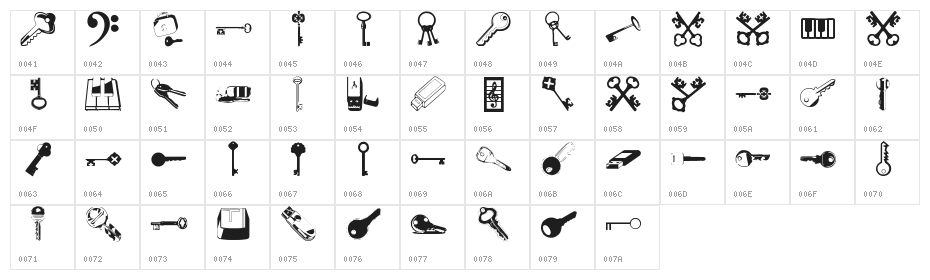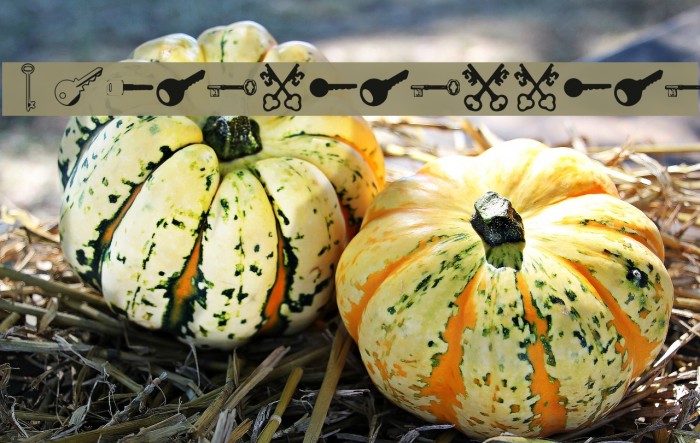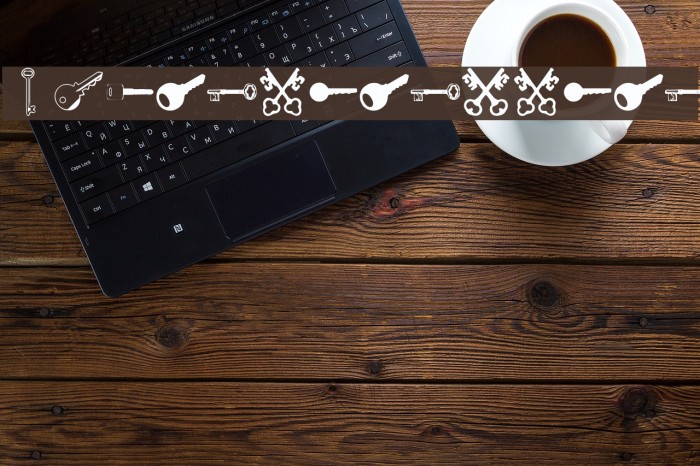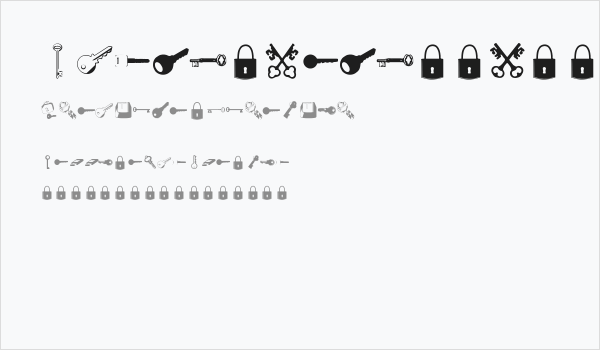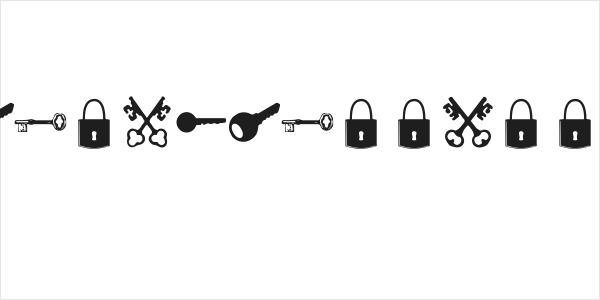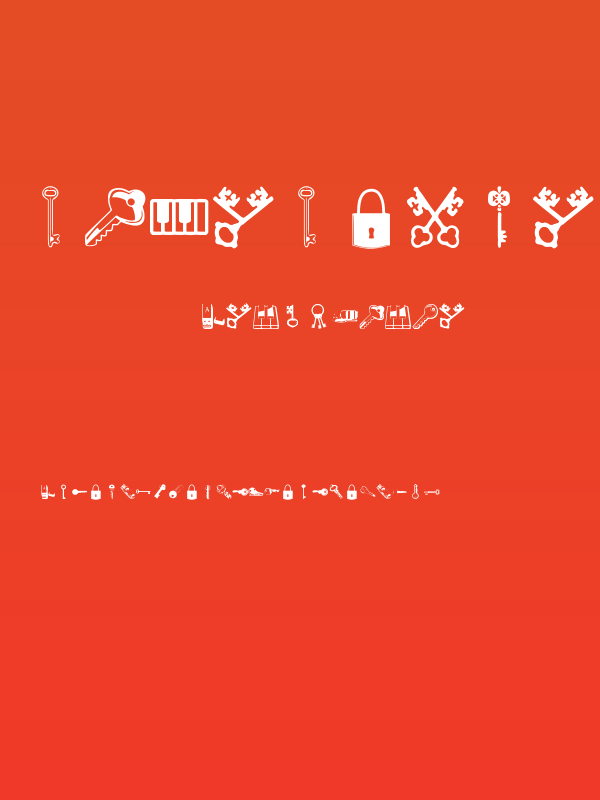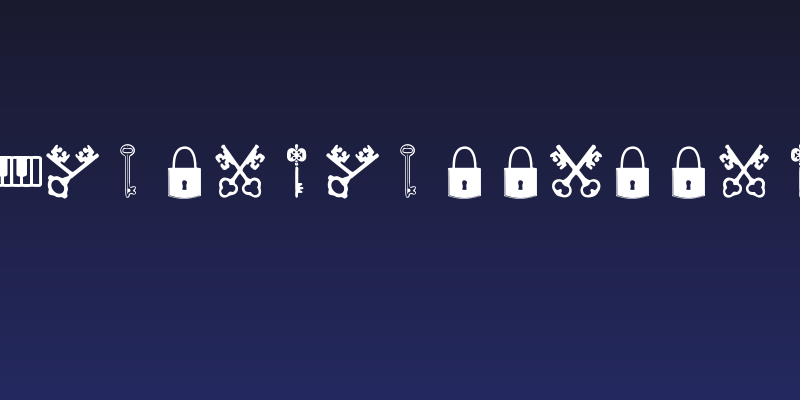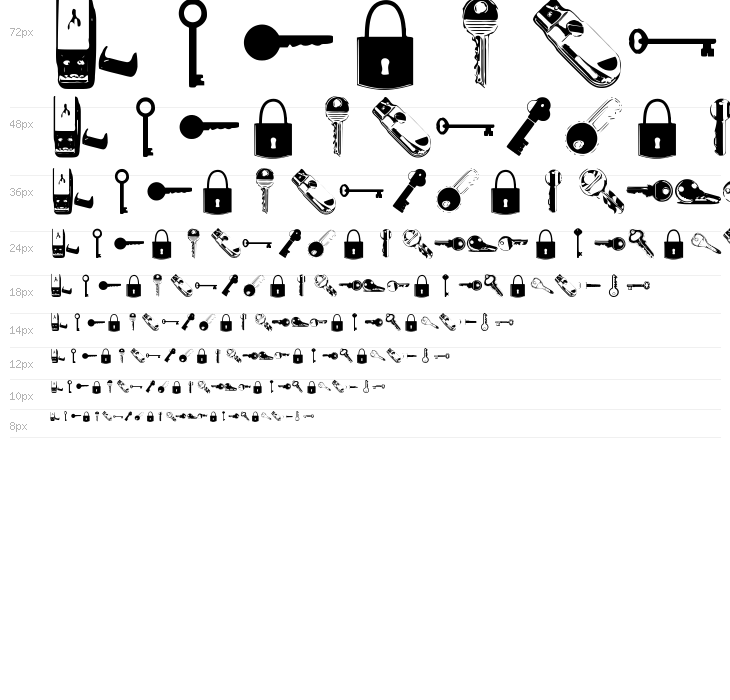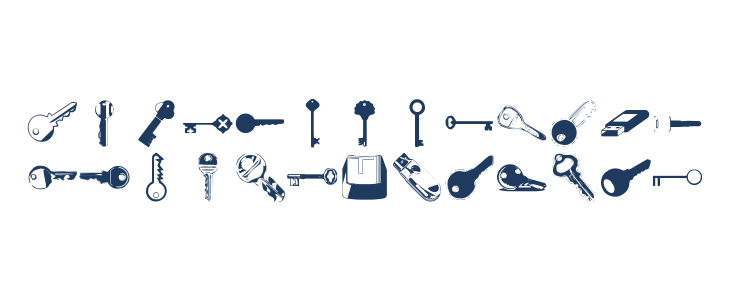
Samys Keys'N'Keys Font
Samys Keys'N'Keys Description
A decorative dingbat font featuring a variety of key and lock illustrations, including musical keys, computer keys, and traditional keys, as well as padlocks in different styles and sizes. Each character is represented by a unique key or lock symbol, making it highly illustrative and thematic.
| Overall Style | Decorative, Thematic |
| Use Case | Icons, Themed graphics, Decorative elements |
| Proposed Projects | Security-themed posters, escape room graphics, educational materials about keys and locks, playful invitations, themed event branding. |